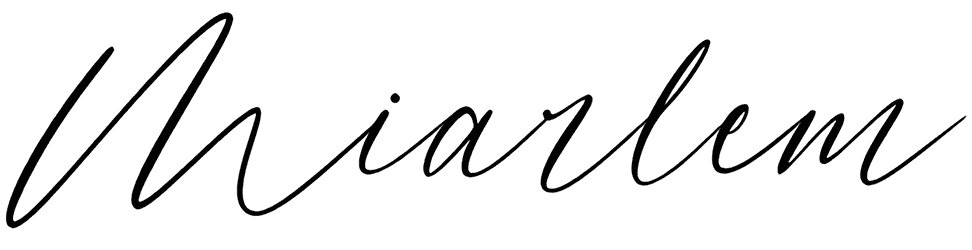
Miarlem Font
You can introduce your brand in the best possible way by choosing a magical script font such as Miarlem for designing posters, logos, web pages, or banner ads. This handwritten font can cover all weaknesses of your content by adding a feeling of softness, delicacy, or momentum to it.